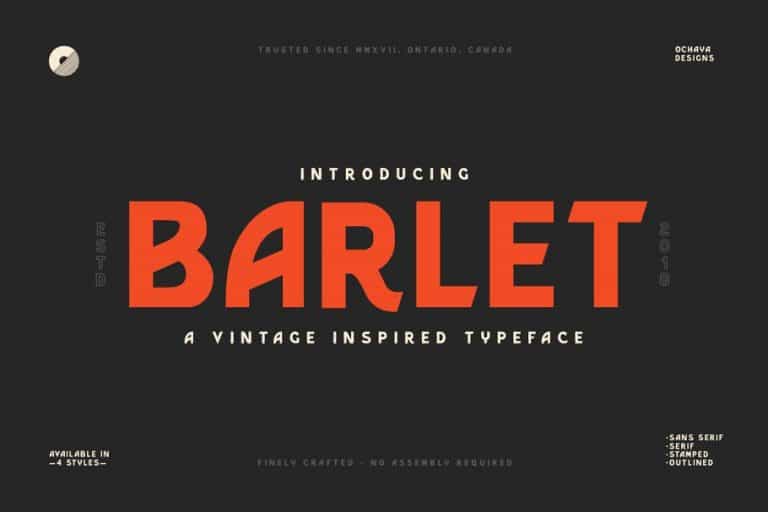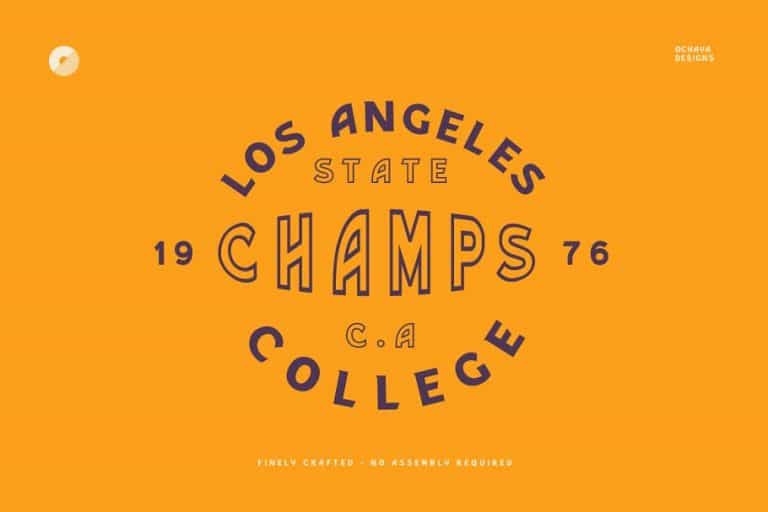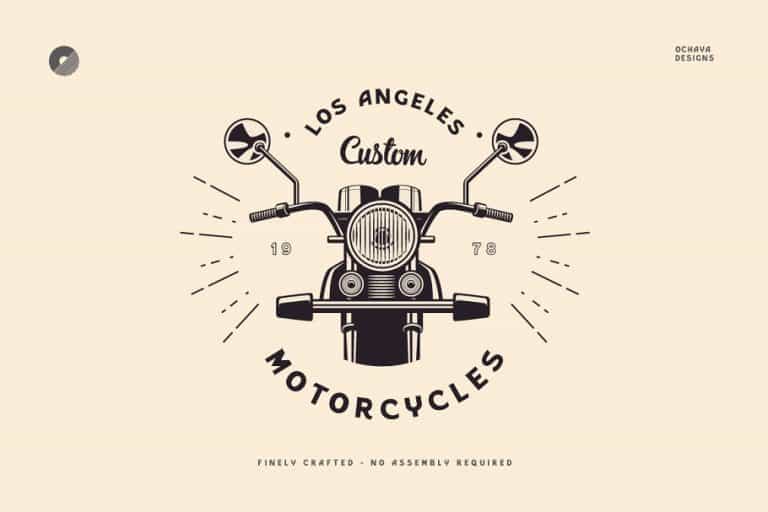
Meet Barlet | Vintage Inspired. A serif typeface with a vintage look. Barlet is a package that consists of four vintage styles, and they are the best for branding, print design, title headings & so much more. Check it out!